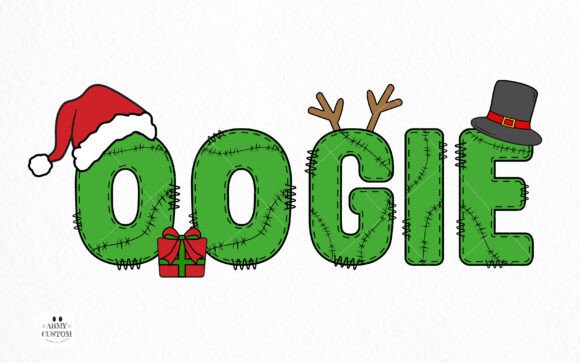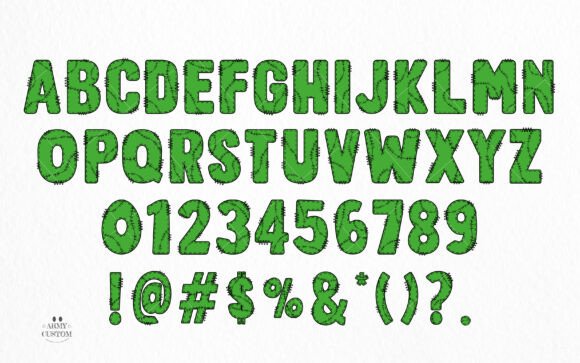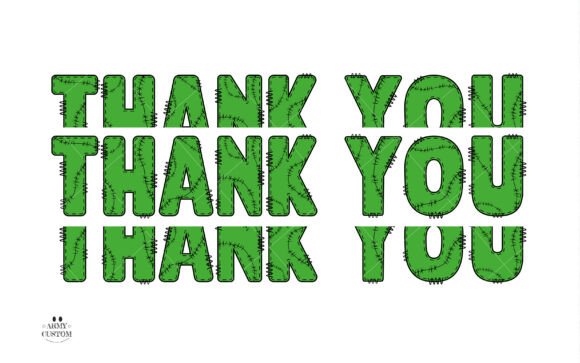
Introduction to Christmas Movie Font
Have you ever found yourself scrolling through design inspiration boards, feeling a spark of creativity ignite within you, only to realize you’re missing that one special element to bring your project to life? For designers, it’s a familiar feeling, especially during the holiday season. As the days grow shorter and the nights grow cozier, we crave a dash of festive flair to elevate our creative projects. That’s where the enchanting Christmas Movie Font comes in – a delightful addition to your holiday design toolkit.
With its whimsical style and jovial feel, this font is a must-have for designers looking to infuse their projects with a sense of merriment and joy. Whether you’re crafting vibrant holiday decorations or adding a dash of festive cheer to a design project, the Christmas Movie Font is sure to bring a smile to your face and a touch of magic to your work.
- Unique, festive design elements, including ornaments, snowflakes, and holly leaves, to add a touch of holiday magic to any project
- Perfect design resource for holiday-themed projects, including greeting cards, invitations, and social media graphics
Honest Review: Christmas Movie Font
I recently stumbled upon the Christmas Movie Font, and I must say, it’s a delightful addition to any creative project. The font is perfect for adding a touch of holiday cheer to your designs.
- High quality design: The font is well-crafted and visually appealing, making it a great choice for designers.
The Christmas Movie Font is a great choice for designers looking to add a festive touch to their projects. It’s perfect for creating invitations, social media graphics, and other holiday-themed designs.
- Not suitable for all designs: The font’s style may not work well with all design themes, so use it judiciously.
Overall, the Christmas Movie Font is a great addition to any designer’s toolkit. Its high quality and versatility make it a great choice for a variety of creative projects. ✨
The Christmas Movie Font is a high-quality design resource perfect for adding a festive touch to your creative projects. With its transparent background, this font can be easily integrated into various design platforms.
For the most out of the Christmas Movie Font, use it in conjunction with other festive design elements, such as snowflakes, holly, or candy canes. Common use cases include:
- Christmas card designs
- Party invitations
- Holiday-themed social media posts
- Gift tags and wrapping paper